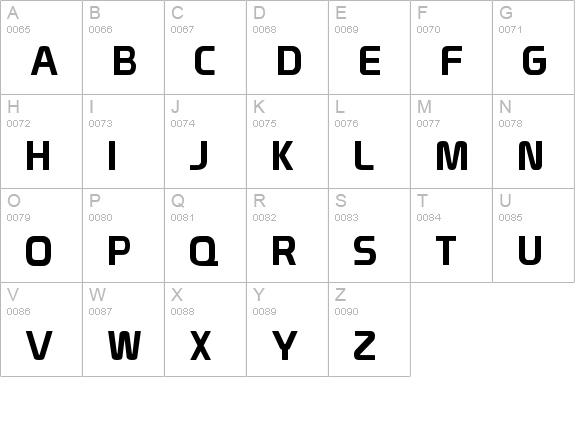
Prototype Font Details
Introducing Prototype font, a modern and stylish typeface that will take your designs to the next level. This versatile font features clean lines and a sleek design, making it perfect for a wide range of projects. Whether you're creating a logo, poster, or website, Prototype font is sure to make a bold statement. The best part? Prototype font is completely free to download at FontsMarket.com. That's right, you can elevate your designs without breaking the bank. So why wait? Download Prototype font today and start creating stunning visuals that will capture attention and leave a lasting impression.